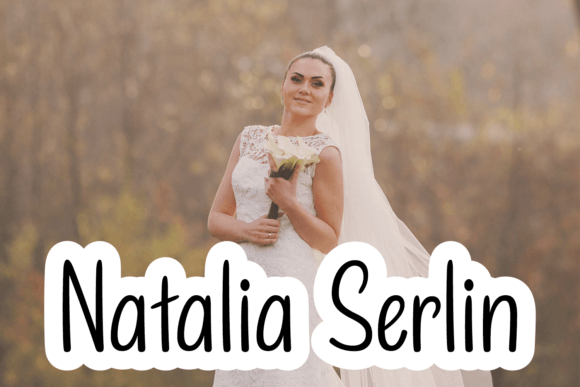
Writing Better Font
Writing Better is a sweet and friendly handwritten font. Its natural and unique style makes it incredibly fitting to a large pool of designs. The only limit is your imagination!